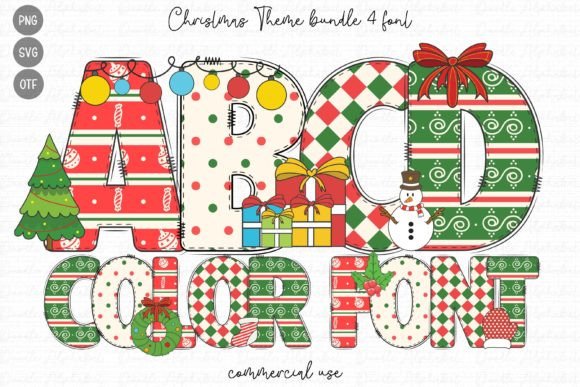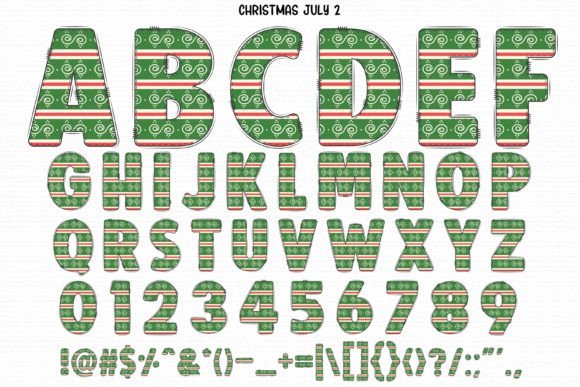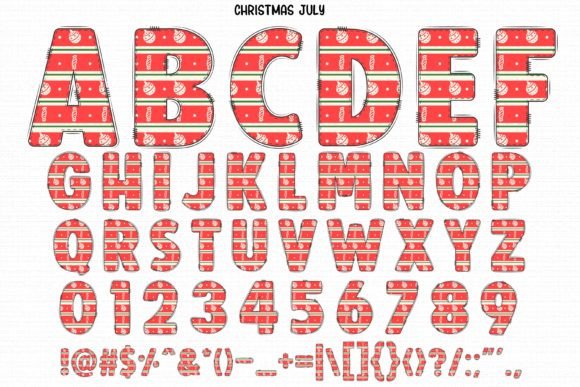
Christmas Theme Font
Christmas Theme is a cute and festive color font. It will look amazing on all your Christmas-themed designs, shirts, crafts, and cards and will instantly enhance your projects!